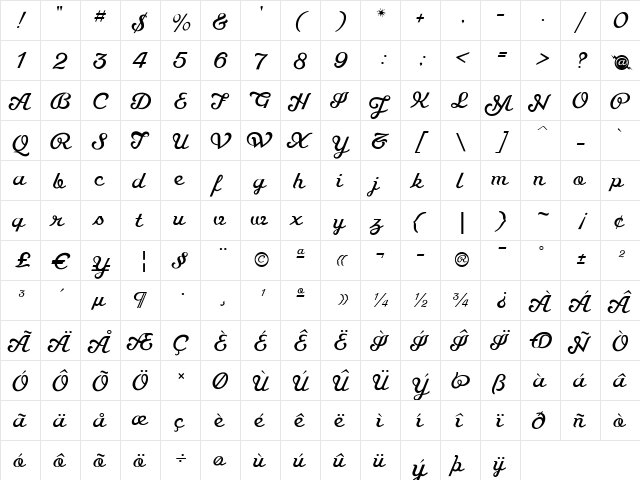
Radio Regular Font Preview
Radio Regular
Radio Regular Font Details
Design Context for Radio Typeface
Radio takes a measured approach to typography — its balanced proportions and neutral character make it a reliable workhorse for both digital and print work.